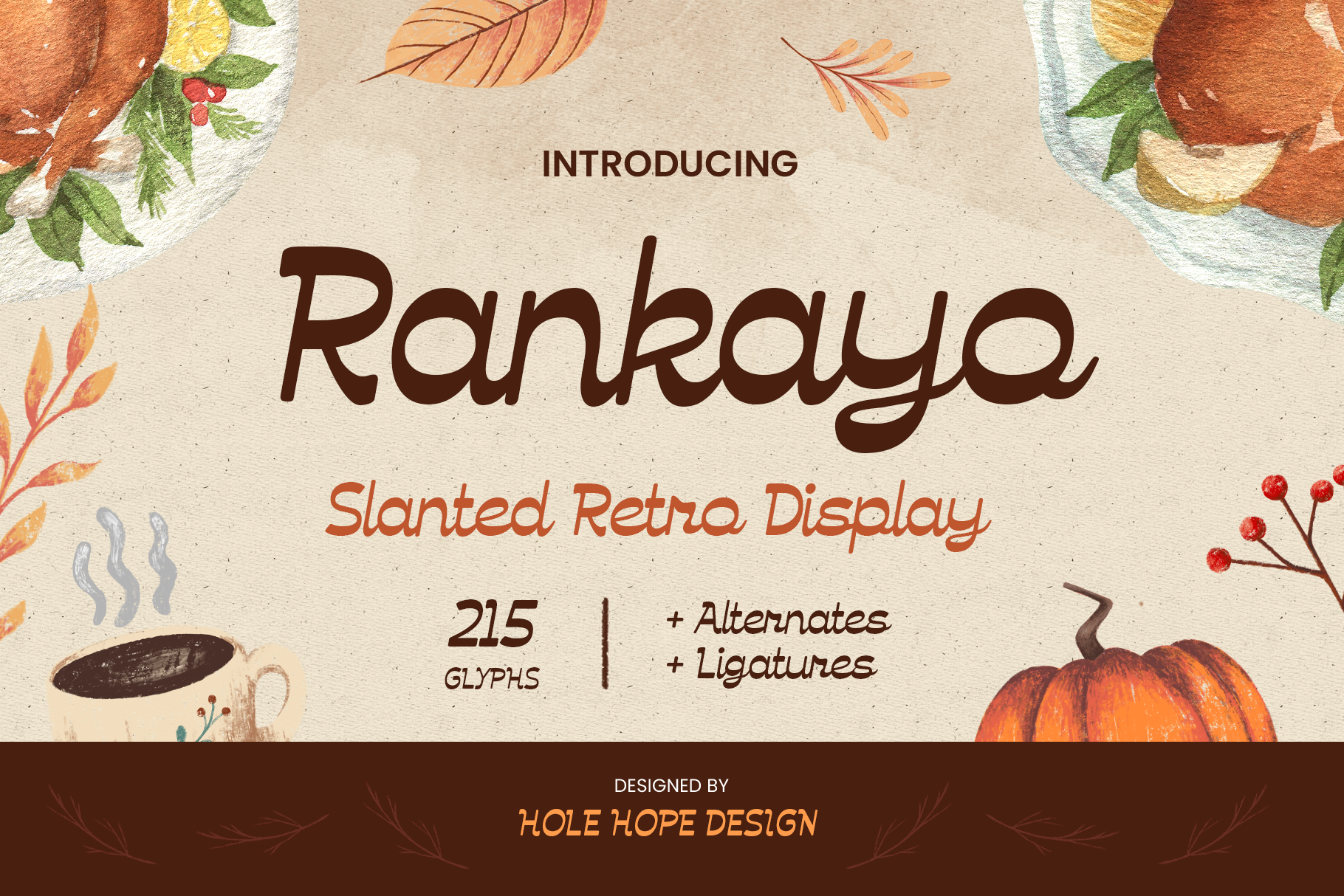
Rankayo | Slanted Retro Display Font
Rankayo is a playful yet elegant typeface with a vintage flair, perfect for capturing the warm and nostalgic spirit of Thanksgiving. Its slanted design adds a dynamic, flowing feel to your text, while the retro-inspired curves and bold lines make it stand out in any holiday-themed project. Whether you’re designing invitations, posters, or seasonal décor, Rankayo’s unique style evokes a sense of gratitude and celebration, making it ideal for Thanksgiving greetings and creative displays.
- Character Set (Uppercas & Lowercase)
- Standard & Discretional Ligatures